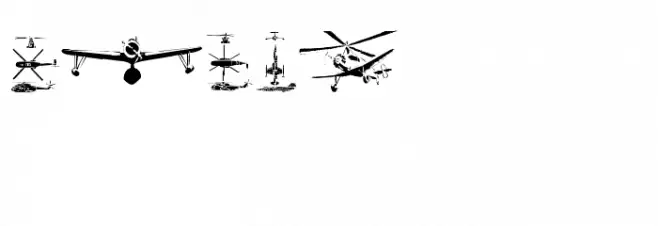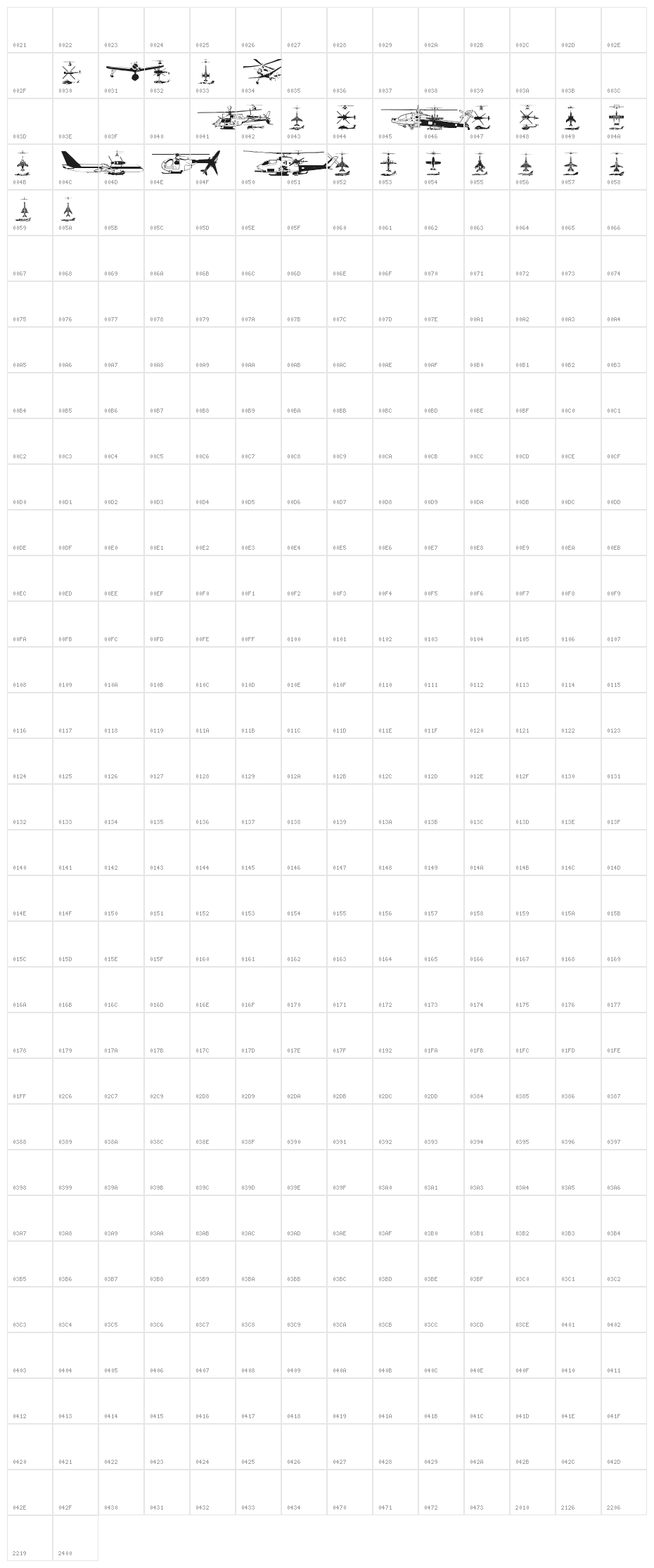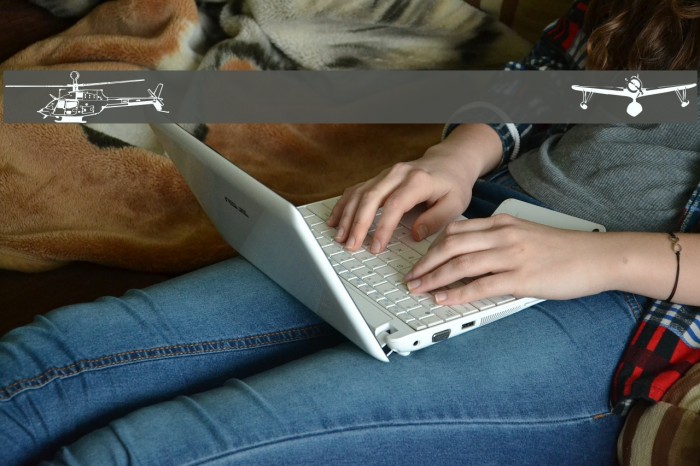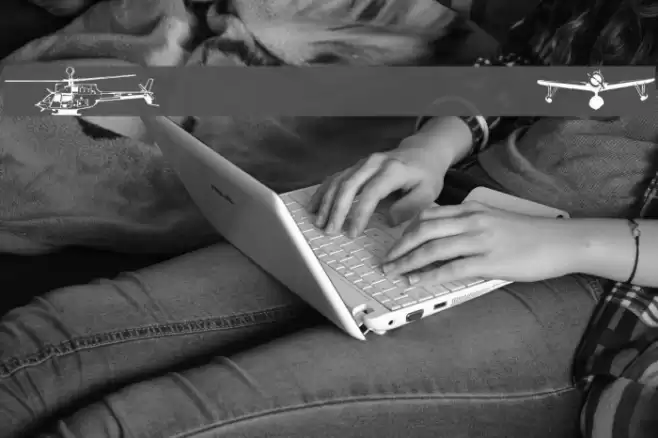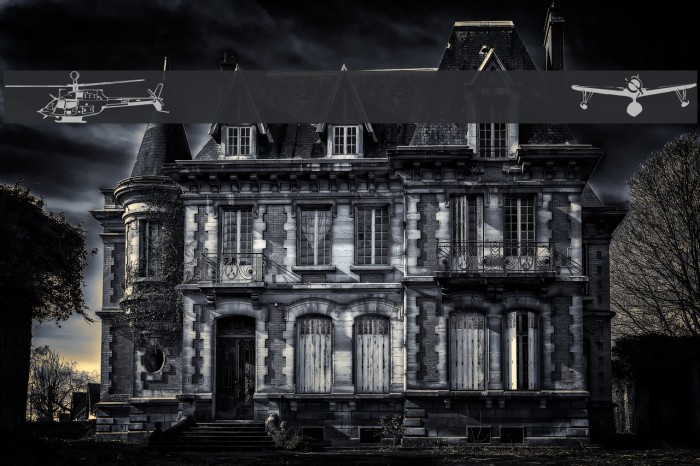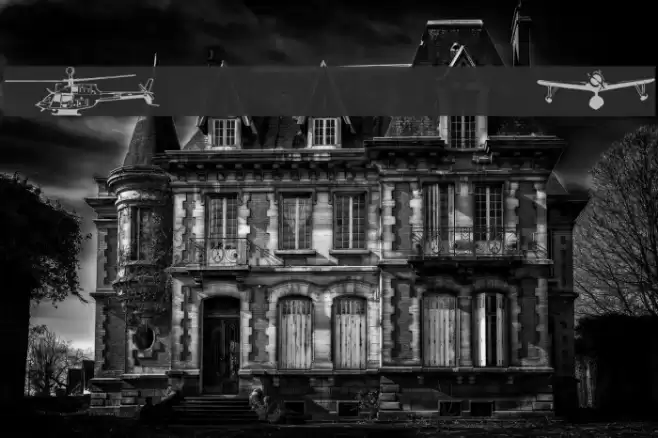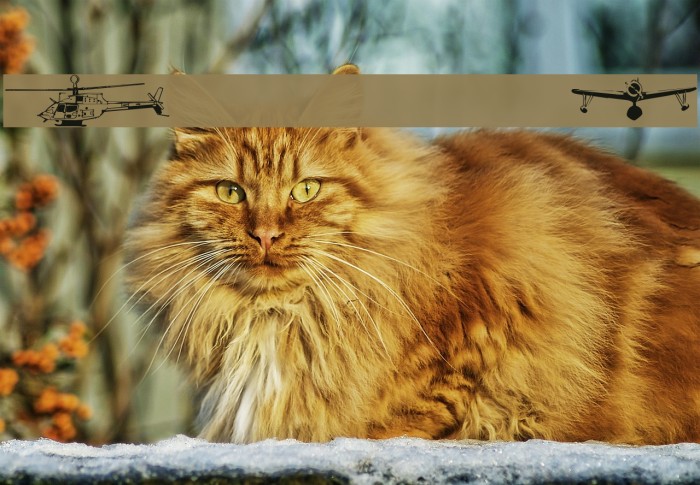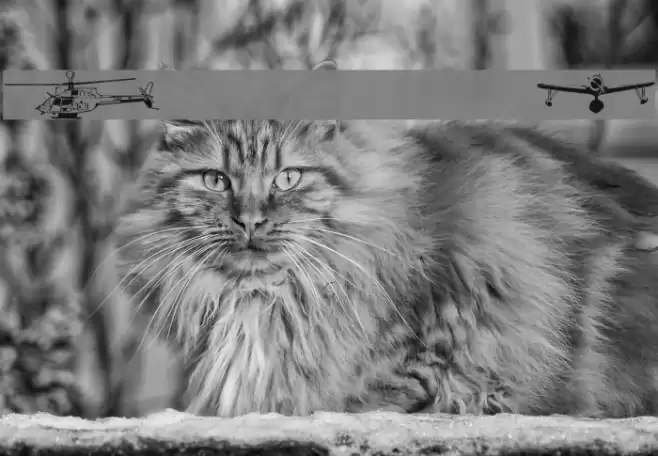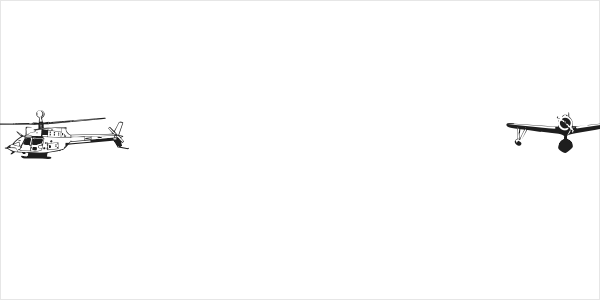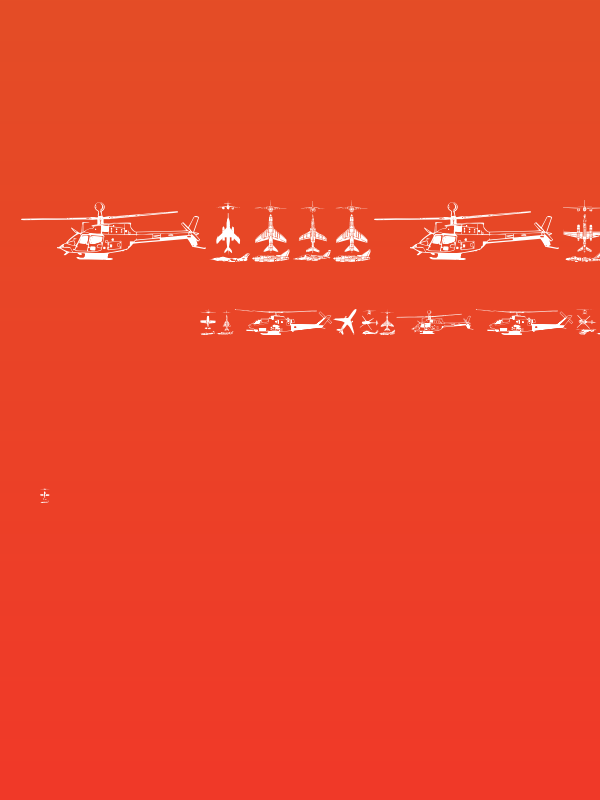
Aircraft1 Font
Aircraft1 Description
A decorative display font composed of detailed silhouettes of various aircraft, including helicopters, airplanes, and jets, each character represented by a unique aircraft illustration.
Overall StyleDecorative, Thematic
Use CaseLogos, Posters, Headlines, Themed graphics
Proposed ProjectsAviation posters, educational materials, themed event invitations, museum signage, novelty merchandise.